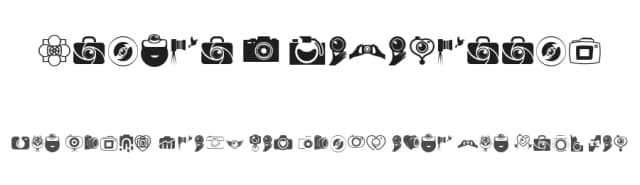
About Fotograami Shuruq Font
Fotograami Shuruq is a dingbat font designed by fotograami Aldousari. It includes 68 glyphs, a regular weight, TTF (TrueType) format, and 89 languages. Fotograami Shuruq is free to download; check the license details on this page before commercial use. Dingbat fonts like Fotograami Shuruq work best for icons, ornaments, bullet points, and decorative accents.
Fotograami Shuruq Font is a versatile dingbats font that works for both headings and body text. Pair it with a contrasting sans-serif or serif font to add visual interest and a clear distinction between titles and body copy.
Fotograami Shuruq Font